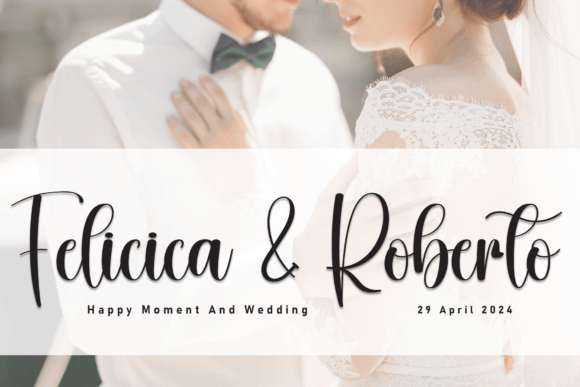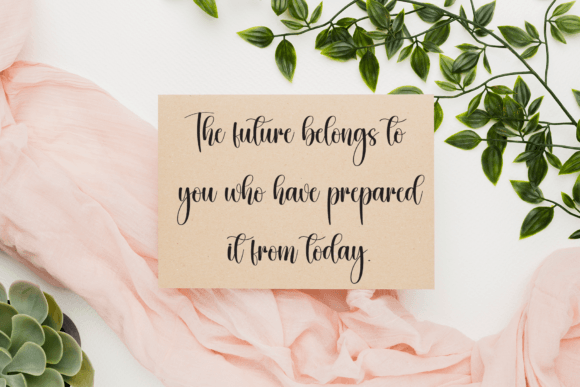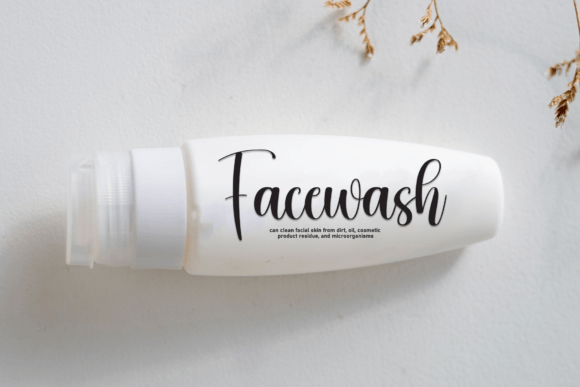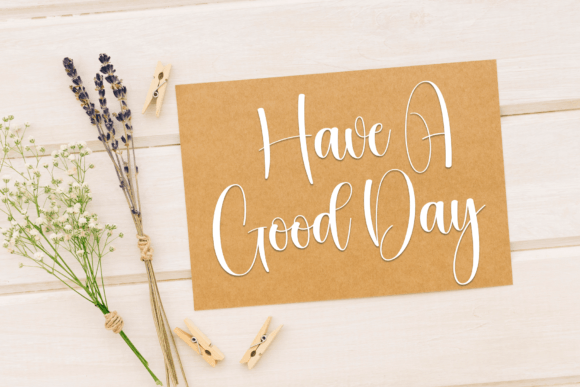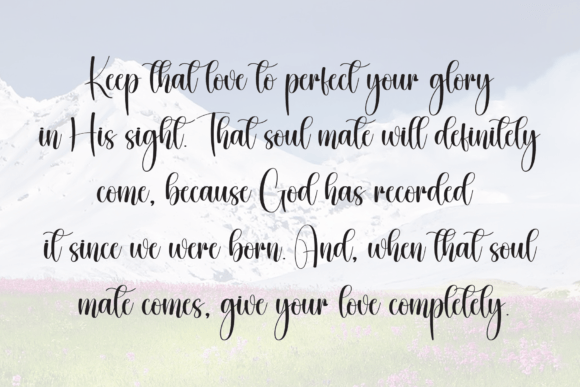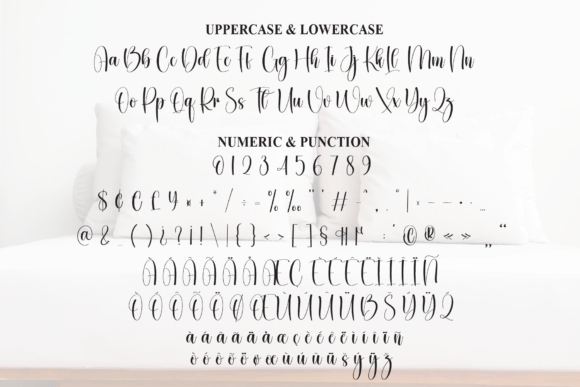
Introduction to Mattress Font
Mattress feels equally charming and elegant.
It looks stunning on wedding invitations, thank you cards, quotes, greeting cards, logos, business cards, and every other design that needs a handwritten touch .
Key Features of Mattress Font